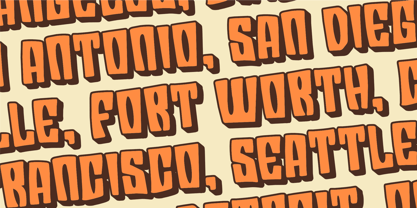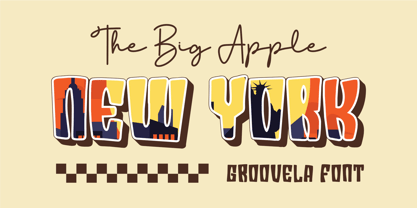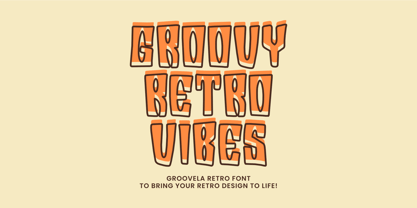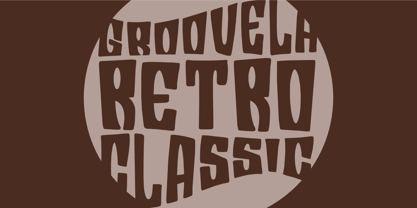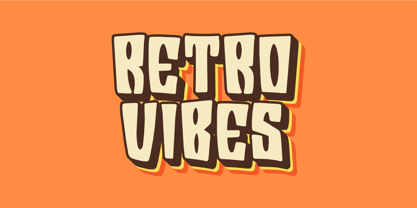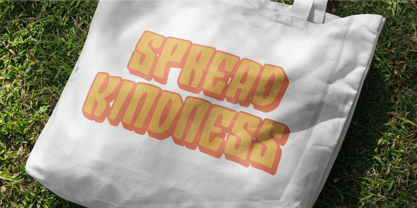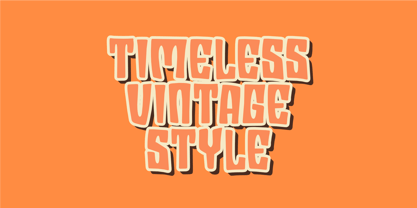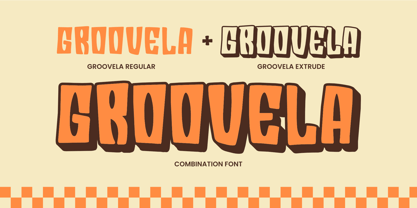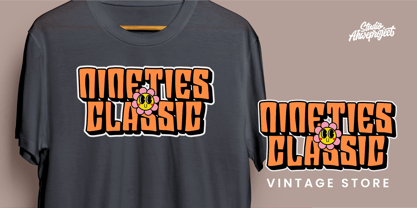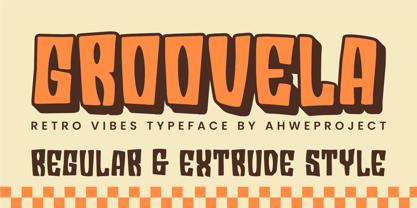
Groovela
by ahweproject
The Groovela Font Family was designed by Dida Ahluddin and published by ahweproject. Groovela contains 2 styles and family package options.
Groovela is a bold and playful retro typeface designed to bring vibrant energy and nostalgic vibes to your projects. Featuring a unique combination of regular and extrude styles, this font is perfect for crafting eye-catching headlines, posters, branding, and more. Its chunky, rounded shapes and vintage-inspired design evoke the spirit of the 70s, making it an ideal choice for those seeking a cheerful and dynamic look. Groovela ensures versatility while adding a funky and groovy touch to your creative endeavors.